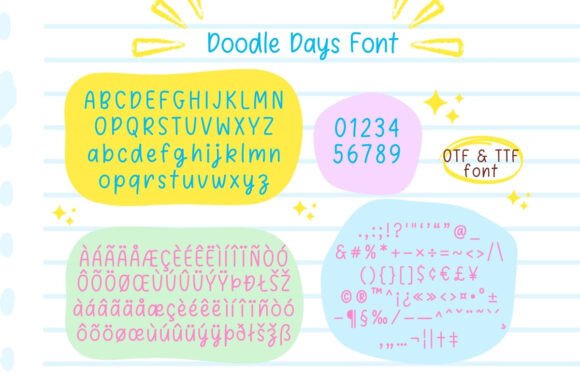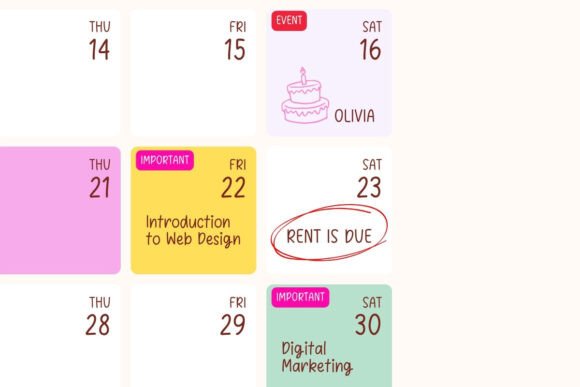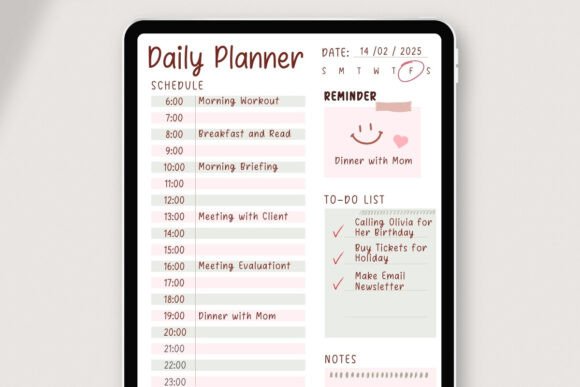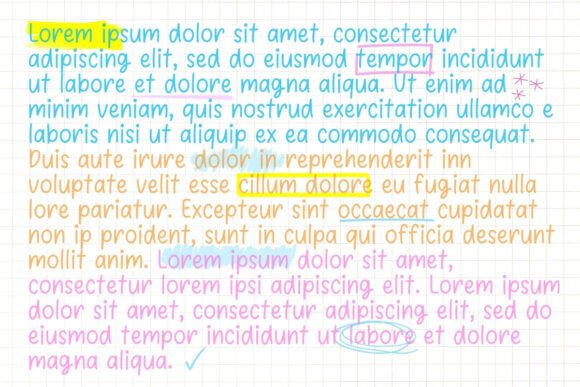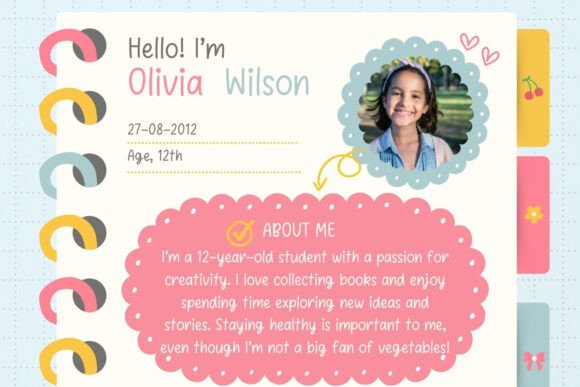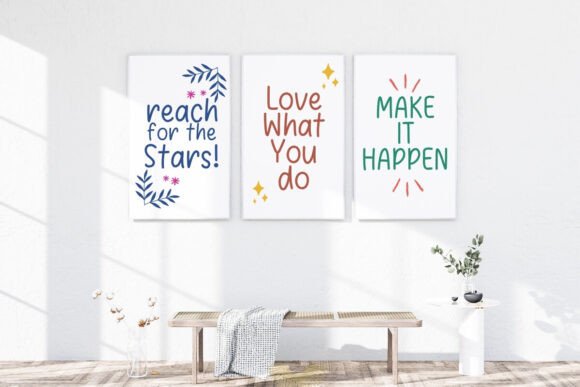
The Joy of Doodle Days Font: A Creative’s New Best Friend
I’ll never forget the day I stumbled upon the perfect font for my craft project. I was working on a digital planner, and my usual go-to fonts just weren’t cutting it. I needed something fun, playful, and energetic. That’s when I discovered Doodle Days Font. It was like a breath of fresh air! With its cute and bubbly style, I knew I had found the perfect companion for my creative endeavors.
An Honest Review of Doodle Days Font
So, what makes Doodle Days Font so special? Let’s dive into the good stuff! 😊
- ✨ Cute and playful handwriting style: Perfect for students, teachers, and creatives who want to add a personal touch to their work.
- ✅ Versatile: Great for note-taking, digital planners, study notes, journaling, and crafting projects.
- 💖 Easy to read: Despite its playful nature, Doodle Days Font is surprisingly easy to read, making it perfect for both digital and print projects.
- 🎉 Fun and bubbly: This font is guaranteed to bring a smile to your face and add a dash of personality to your work.
While Doodle Days Font is an amazing addition to any creative project, there are a few things to keep in mind:
- 🤔 Limited use in formal contexts: This font is perfect for creative projects, but may not be suitable for formal documents or professional settings.
- ⚠️ May not work well in small sizes: As with many script fonts, Doodle Days Font may become difficult to read when scaled down to very small sizes.
The Story Behind Doodle Days Font
Doodle Days Font was designed with creativity and playfulness in mind. The designer, inspired by the whimsical world of doodles and handwriting, aimed to create a font that would bring joy and personality to any project. With its cute and bubbly style, Doodle Days Font is sure to become a favorite among students, teachers, and creatives.
Q: What is Doodle Days Font?
A: Doodle Days Font is a cute and playful handwriting font designed for students, teachers, and creatives.
Q: Is Doodle Days Font easy to read?
A: Yes, despite its playful nature, Doodle Days Font is surprisingly easy to read, making it perfect for both digital and print projects.